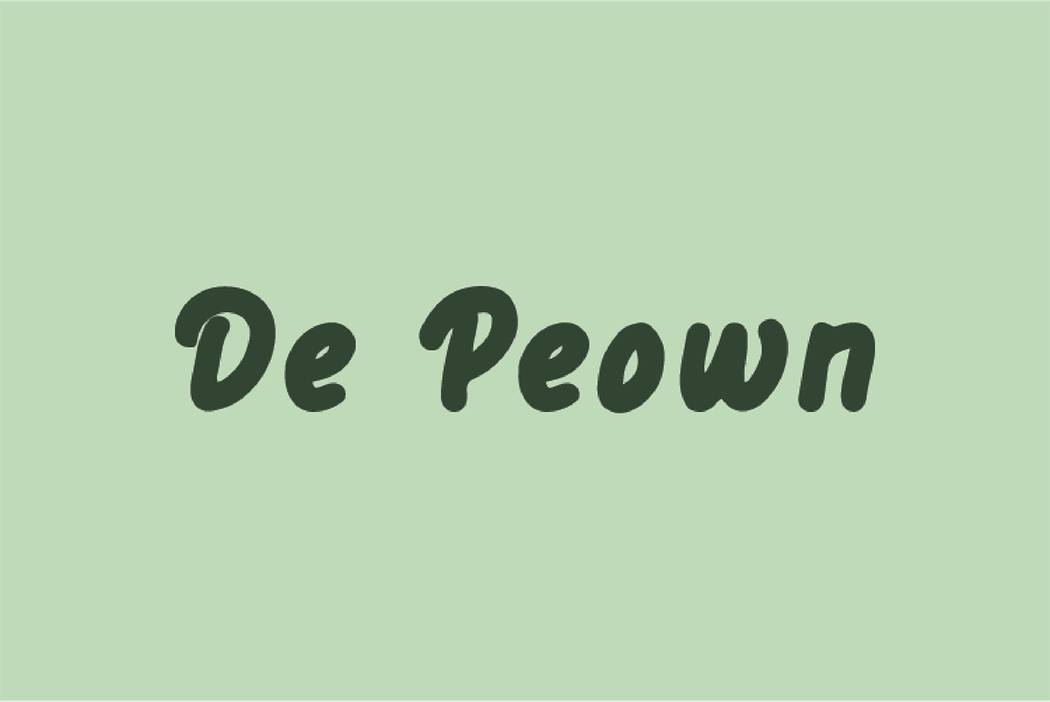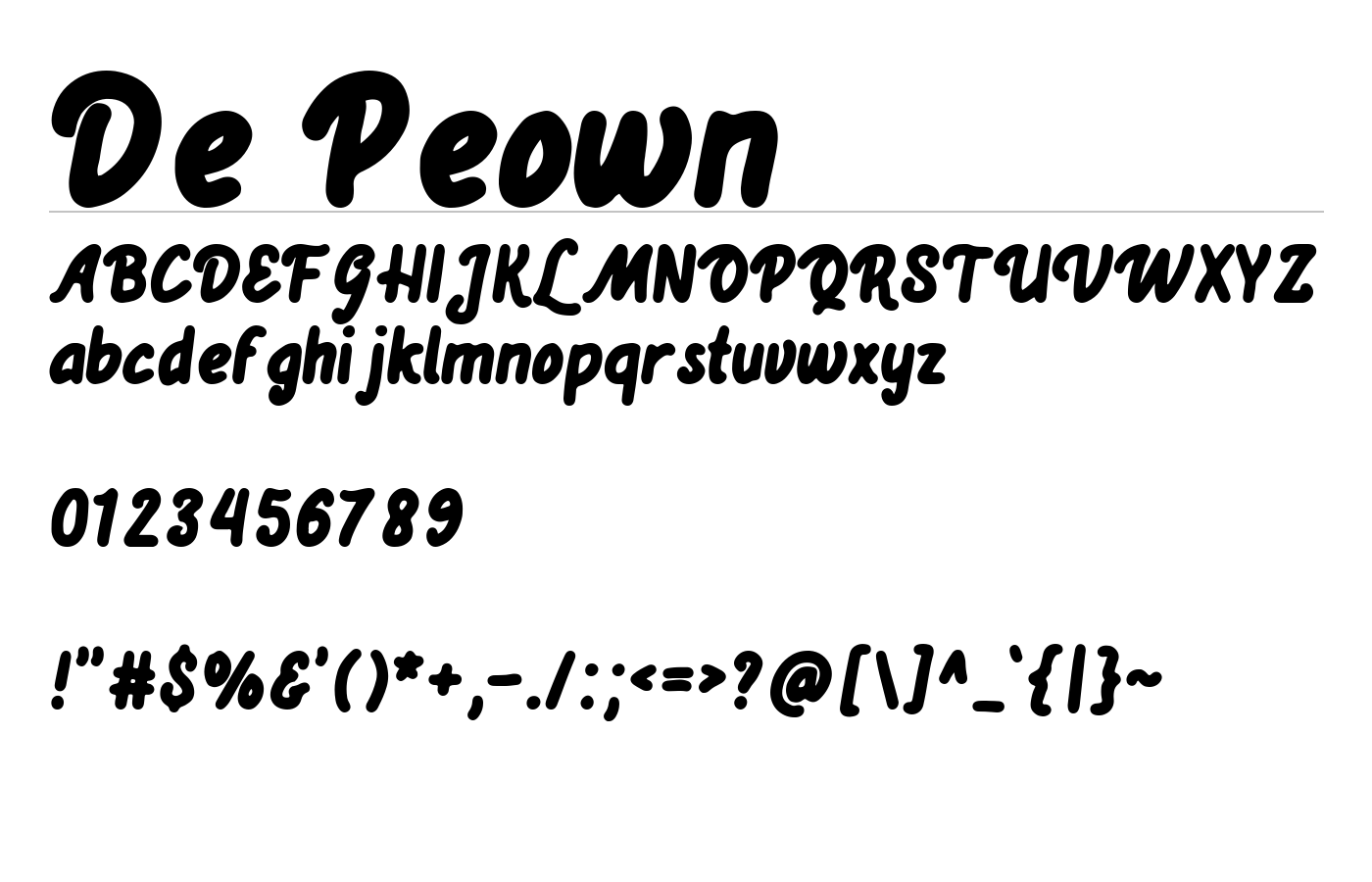
De Peown is a bold, playful script-style font with smooth, rounded strokes that give it a friendly and approachable feel. Its moderate x-height and slightly condensed letterforms make it very readable, while the soft, hand-drawn look adds a casual, creative vibe. This font works wonderfully for informal branding, fun headlines, and creative projects looking to convey warmth and personality.
De Peown Font
About De Peown Font
| Designer | Lady Hanna |